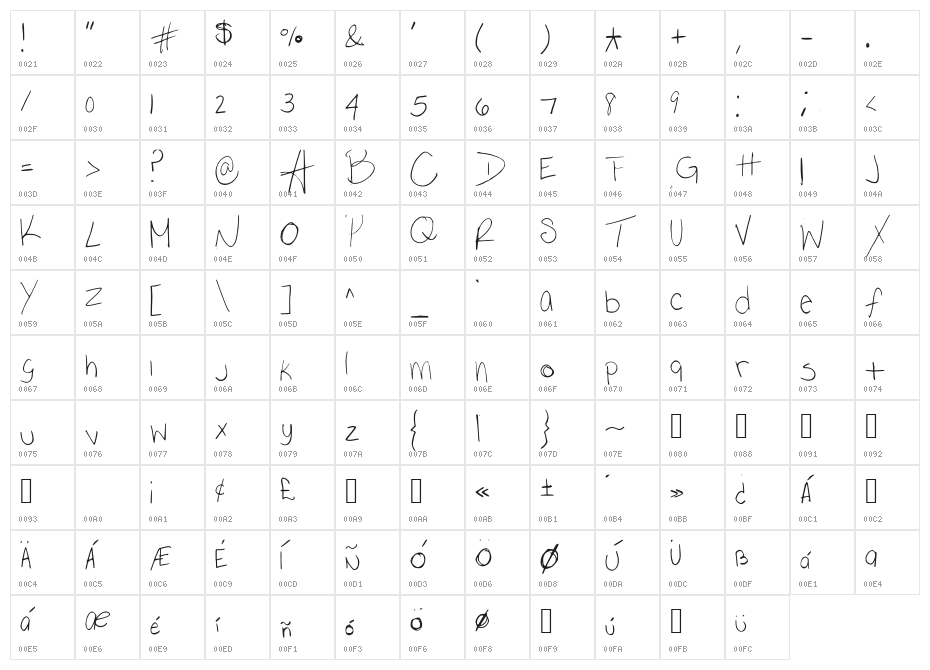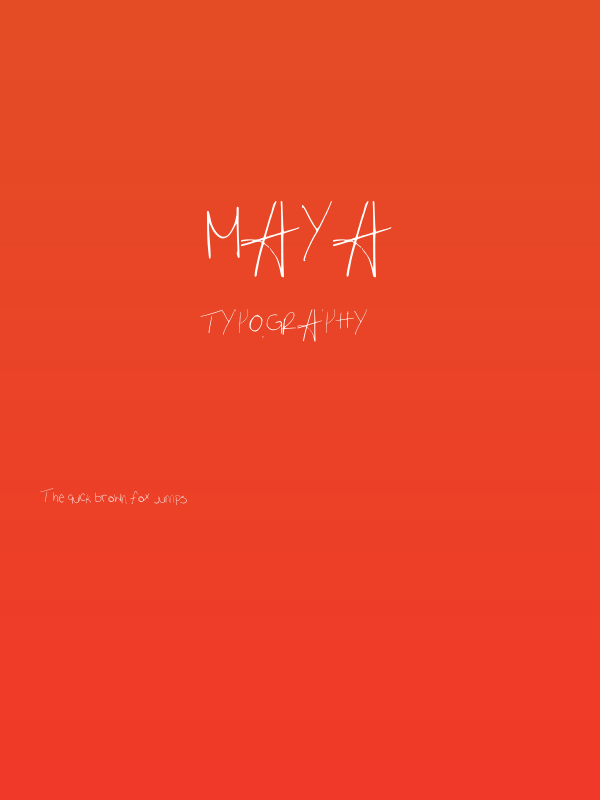
Maya Font
Maya Description
This font exhibits a playful and casual handwritten style, characterized by its irregular strokes and varying line thickness. The letters have a whimsical and organic feel, with some characters featuring exaggerated curves and loops. The uppercase letters are bold and slightly uneven, while the lowercase letters maintain a consistent flow with a touch of informality. The numerals and special characters follow the same playful aesthetic, making the font suitable for creative and informal designs. The overall appearance is dynamic and lively, capturing the essence of a personal touch.
| Use Case | Logos, Headlines, Informal Text |
| Proposed Projects | Ideal for greeting cards, children's books, playful branding, and informal invitations. |